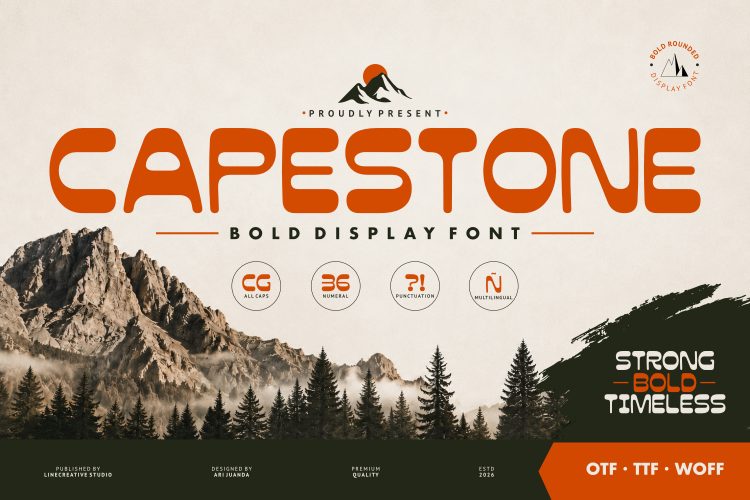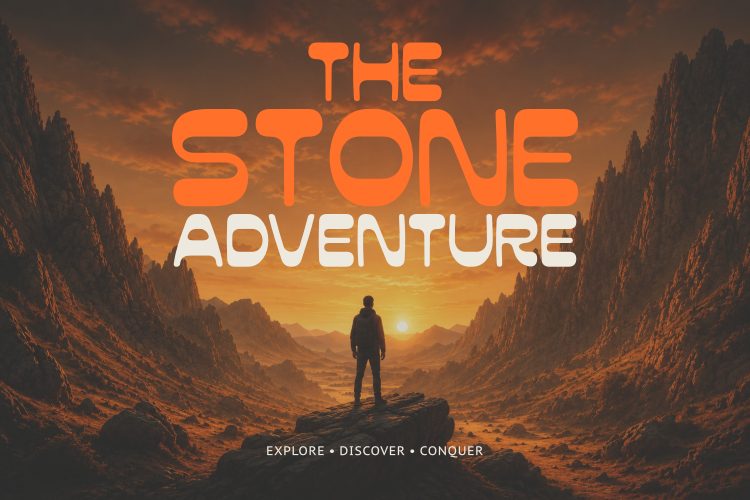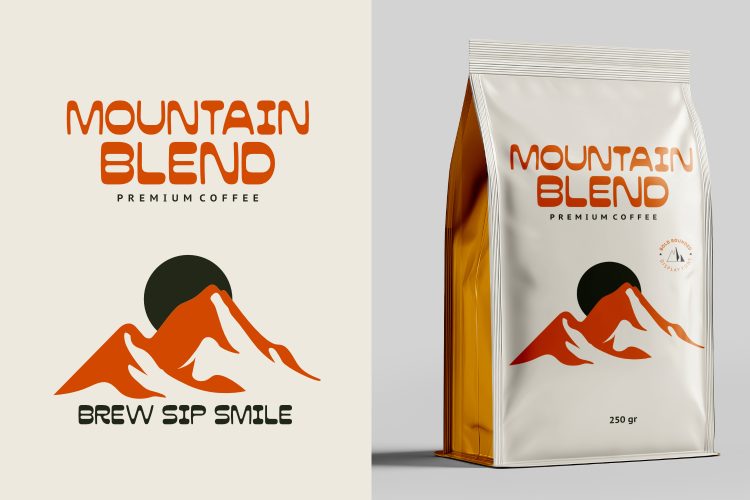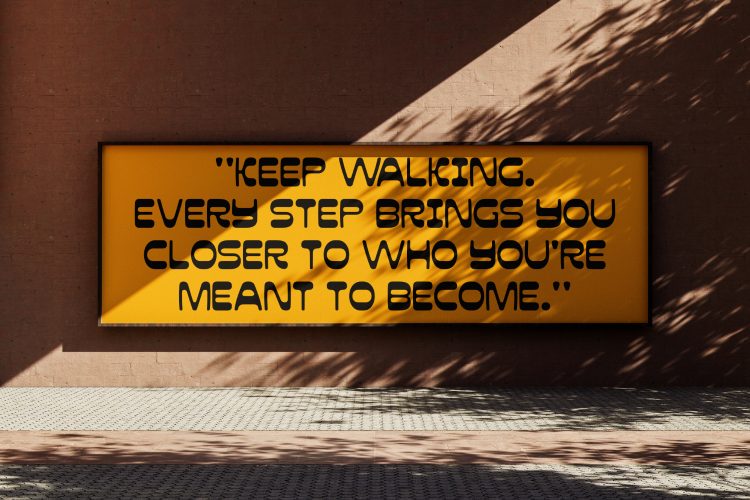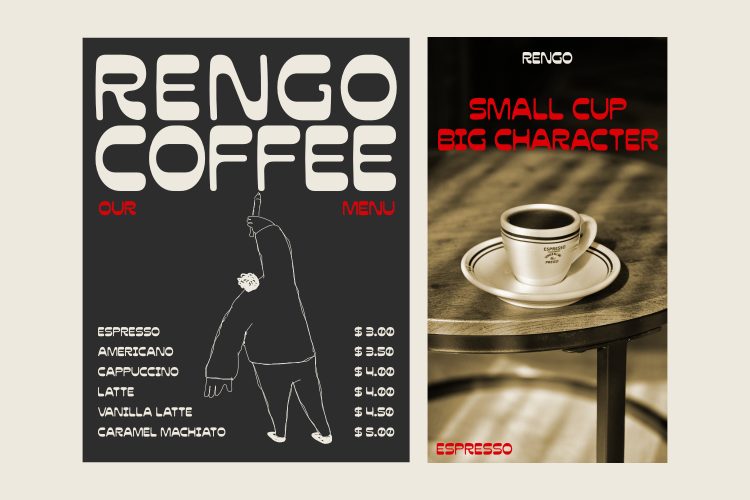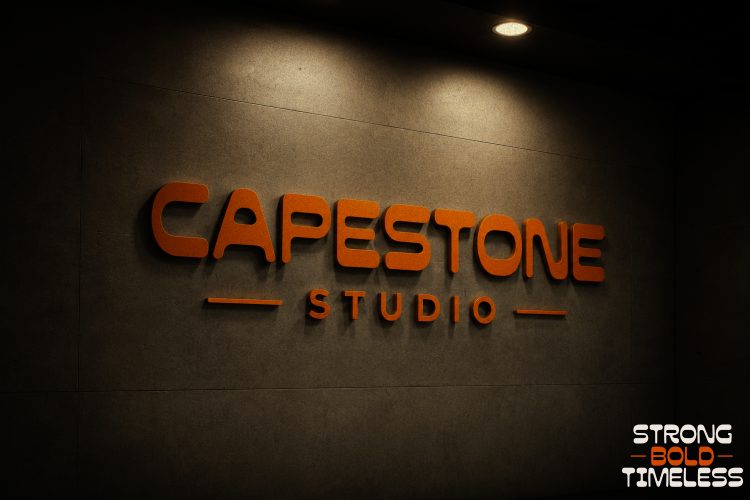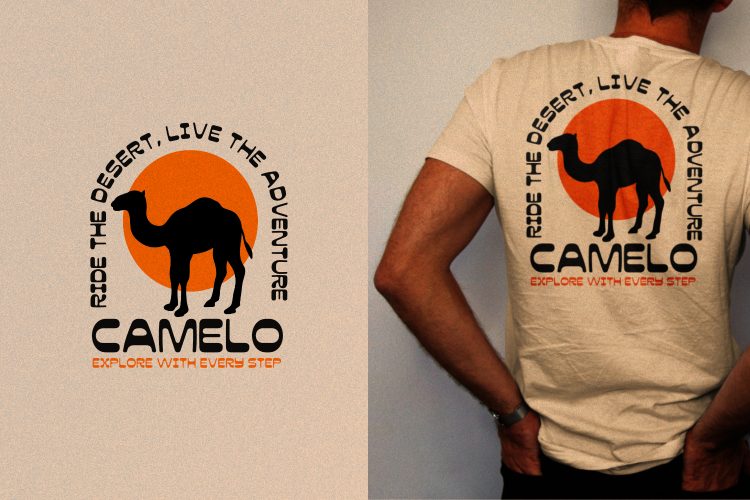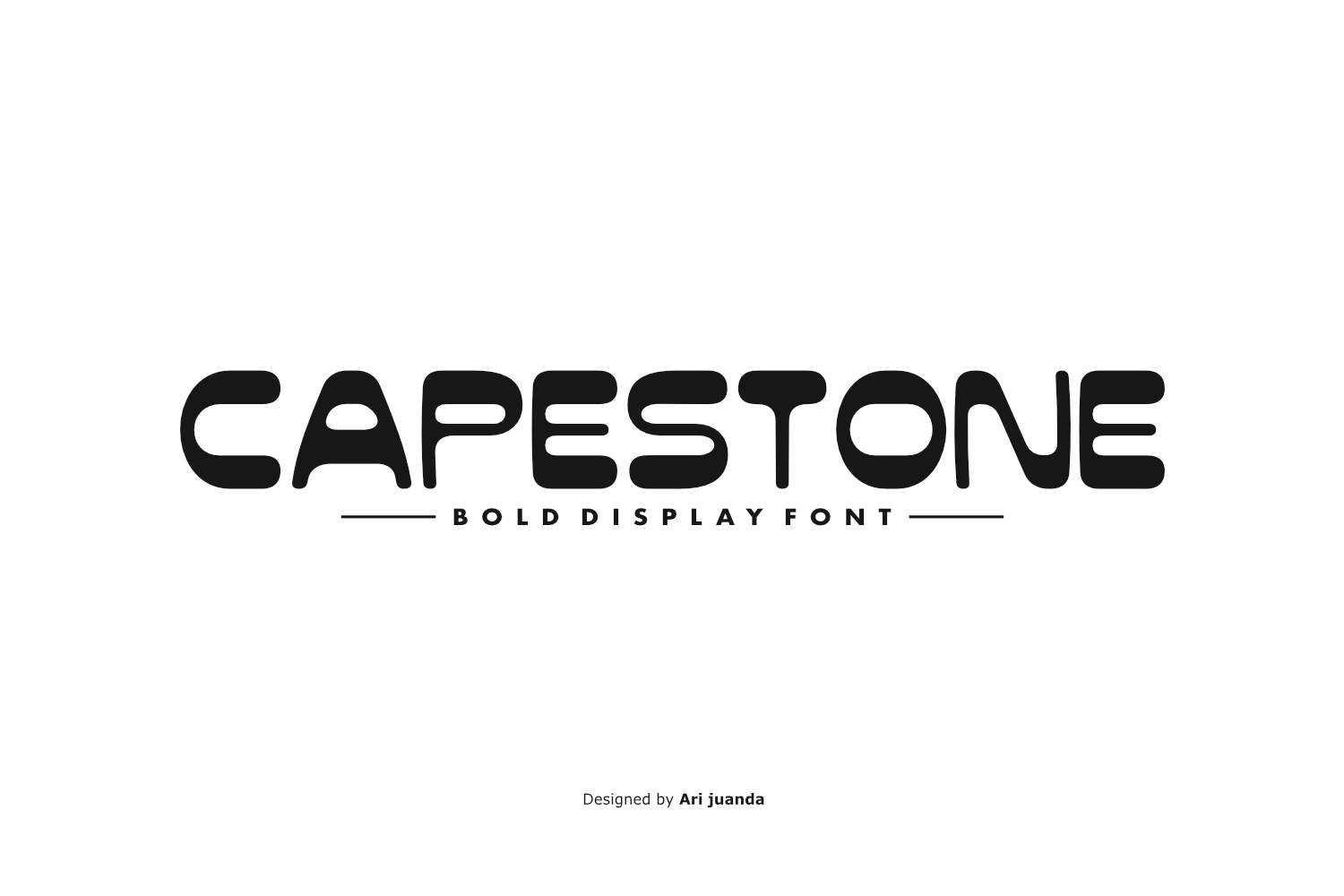
Capestone Font – Bold Display Font
Capestone Font is a bold display typeface designed by Ari Juanda in 2026, created for designers who need strong, friendly, and memorable lettering. Inspired by the strength of mountains, outdoor adventures, and timeless branding, Capestone combines bold proportions with smooth rounded corners and confident geometric shapes.
With its clean construction and distinctive rounded character, Capestone Font creates an immediate visual impact without sacrificing readability. The balanced shapes give this display typeface a modern and approachable personality, making it suitable for a wide range of branding, packaging, poster, apparel, and digital design projects.
The visual character of Capestone is built around a bold presence and smooth geometric forms. Its rounded details soften the overall appearance while maintaining the strength expected from a display font. This combination allows Capestone to work especially well when typography needs to become an important part of the visual identity.
Whether you are designing an outdoor brand, coffee packaging, travel poster, apparel collection, restaurant identity, or social media graphic, Capestone Font can help create typography that feels confident, distinctive, and easy to recognize.
Perfect For
Capestone Font is designed for projects where bold display typography needs to communicate personality and visual impact.
- Outdoor & Adventure Branding
- Camping & Hiking Logos
- Coffee Packaging
- Café & Restaurant Branding
- Apparel & Merchandise
- Travel Posters
- Signage
- Product Packaging
- Sports & Lifestyle Brands
- Social Media Graphics
- YouTube Thumbnails
- Headlines & Display Typography
- Logo & Brand Identity
- Promotional Graphics
Its bold appearance makes Capestone particularly useful for large headlines, logos, titles, packaging labels, posters, advertisements, and other applications where the typeface needs to remain noticeable from a distance.
Font Features
- Uppercase & Lowercase
- Numerals & Punctuation
- Multilingual Support
- Clean Rounded Design
- Bold Display Style
- Easy to Read
- Suitable for Print & Digital Design
The combination of uppercase and lowercase characters gives designers flexibility when creating different typographic compositions. Numerals and punctuation provide the additional characters needed for branding, packaging, posters, advertisements, and digital content.
Why You’ll Love Capestone Font
One of the defining qualities of Capestone Font is its balance between strength and friendliness. Bold typography can sometimes feel overly aggressive, but Capestone uses smooth rounded corners and geometric construction to create a more approachable visual character.
This makes Capestone suitable not only for outdoor and adventure-related projects but also for lifestyle brands, cafés, restaurants, merchandise, and contemporary visual identities.
For outdoor branding, Capestone can communicate a sense of strength and exploration. For coffee packaging and café branding, its rounded forms can create a welcoming and recognizable personality. For apparel and merchandise, the bold structure helps typography remain clear and impactful across different graphic compositions.
Capestone also works well for digital applications. Its strong shapes are suitable for social media graphics, YouTube thumbnails, promotional banners, and large digital headlines where typography needs to attract attention quickly.
A Bold Typeface for Modern Branding
Capestone Font was created to give designers a display typeface that feels strong while remaining clean and accessible. Its mountain-inspired concept brings a sense of resilience and exploration, while the rounded geometric construction gives the font a contemporary character.
Use Capestone for a logo that needs a confident visual identity, a travel poster that communicates adventure, or packaging that needs a memorable headline. The typeface can also become part of a broader brand system across apparel, promotional materials, social media content, and printed products.
For designers working on outdoor, lifestyle, adventure, travel, food, or merchandise projects, Capestone provides a flexible display style that can adapt to different visual directions.
Capestone Font by Ari Juanda
Capestone Font was designed by Ari Juanda in 2026. The typeface reflects Ari Juanda’s approach to creating distinctive display typography with recognizable shapes and practical applications for modern graphic design.
From outdoor branding and coffee packaging to apparel, posters, logos, and digital graphics, Capestone is designed to help typography stand out and create a strong visual impression.